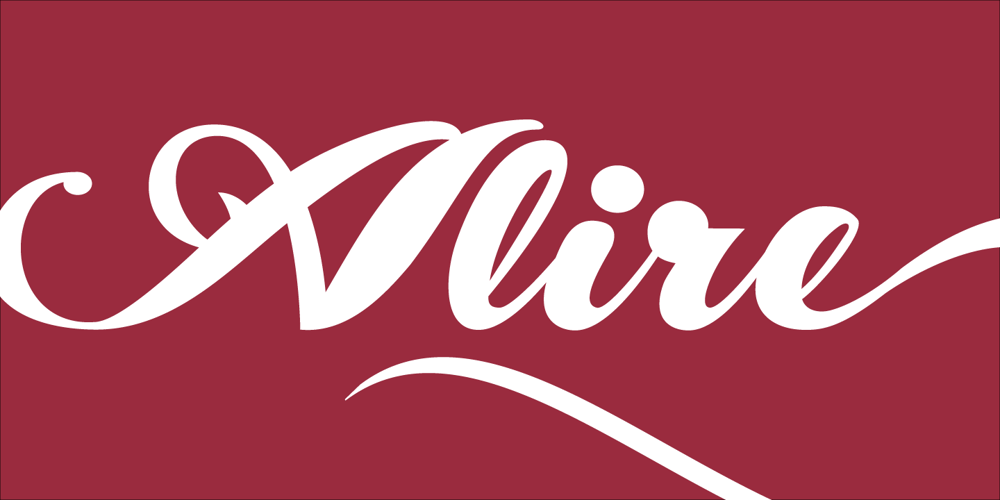
Alire
Alire font
Alire Font Family was designed by Sigit Nur Wicaksono and published by Gittype. Alire contains 1 styles and family package options. Alire is a cursive font and inspired from the famous retro typography design. It includes a total of 518 glyphs and includes several OpenType Features such as: Stylistic Alternates, Swashes, Ligatures, Contextual and Stylistic Set.